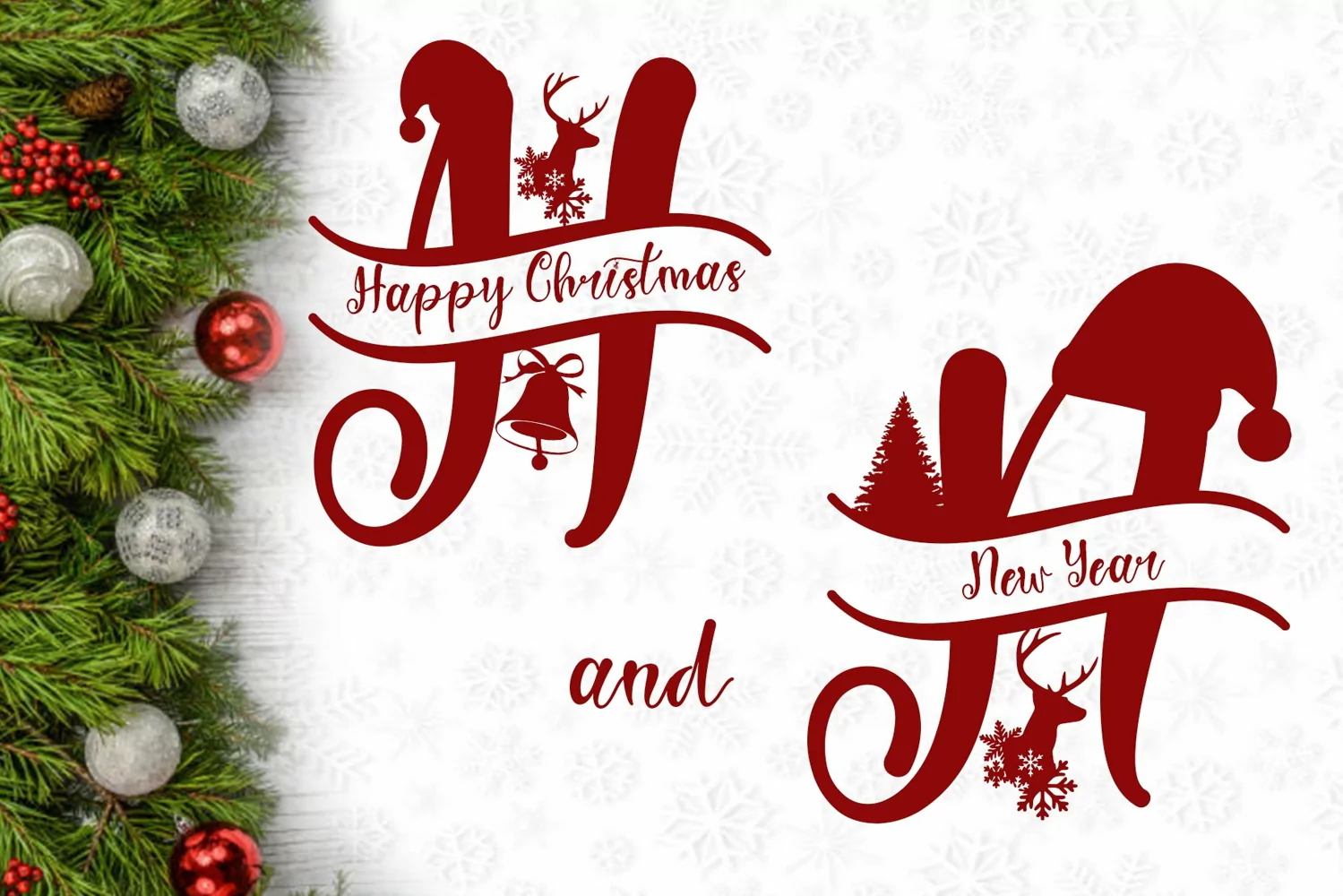
"Sweet Christmas Monogram" is a script monogram font with a Christmas theme. This font is very beautiful with a variety of Christmas decorations equipped with a large logo in the form of a very amazing Monogram letter. This font is perfect for Christmas, New Years, invitations, and many other types of work. This font is very complete, because it is equipped with uppercase and lowercase letters, uppercase alternates, lowercase alternates, swash and titling, ligatures, monogram, multilingual support, numeral and punctuation. How to use this font is very easy and there is also a guide for its use in the preview.
Sweet Christmas Monogram